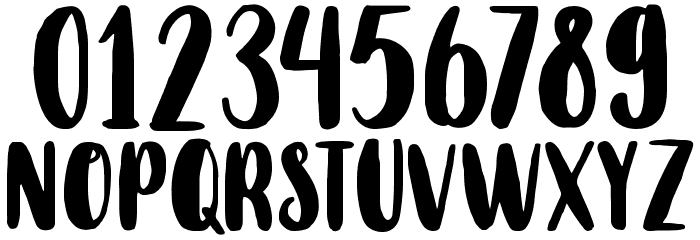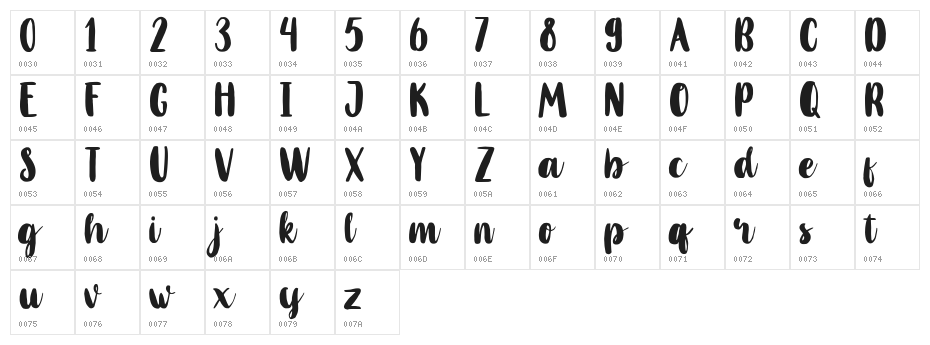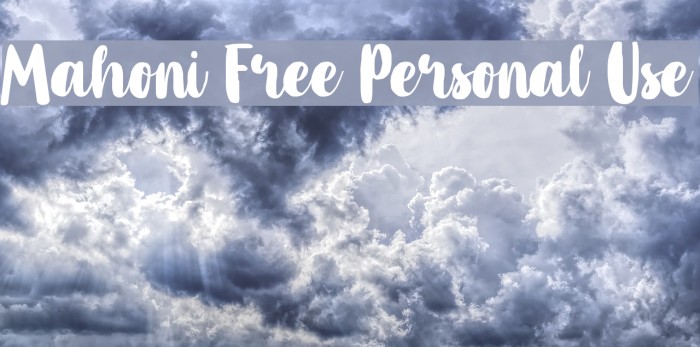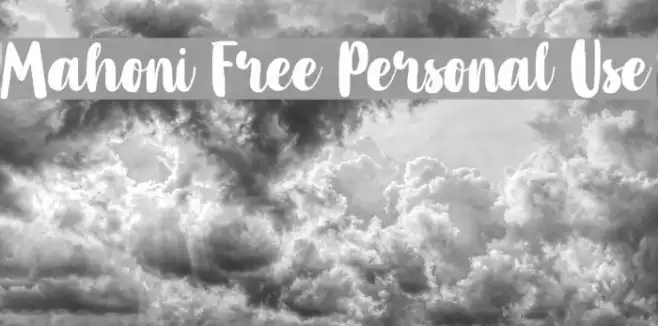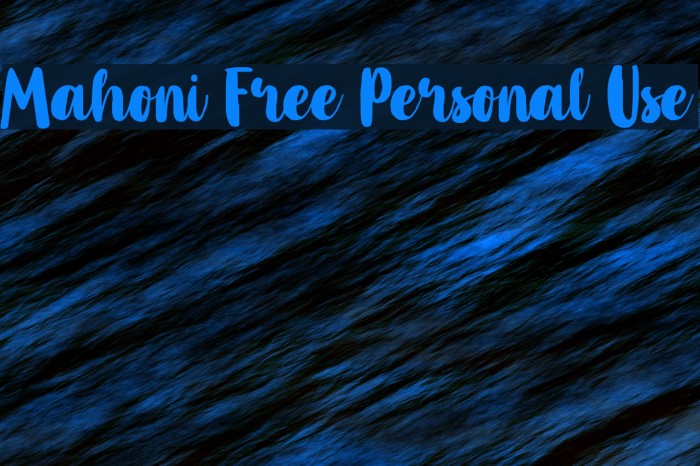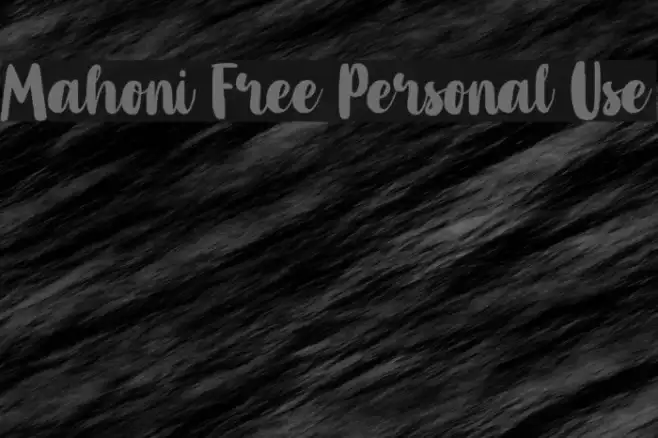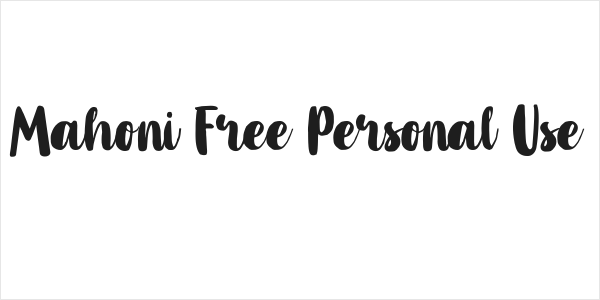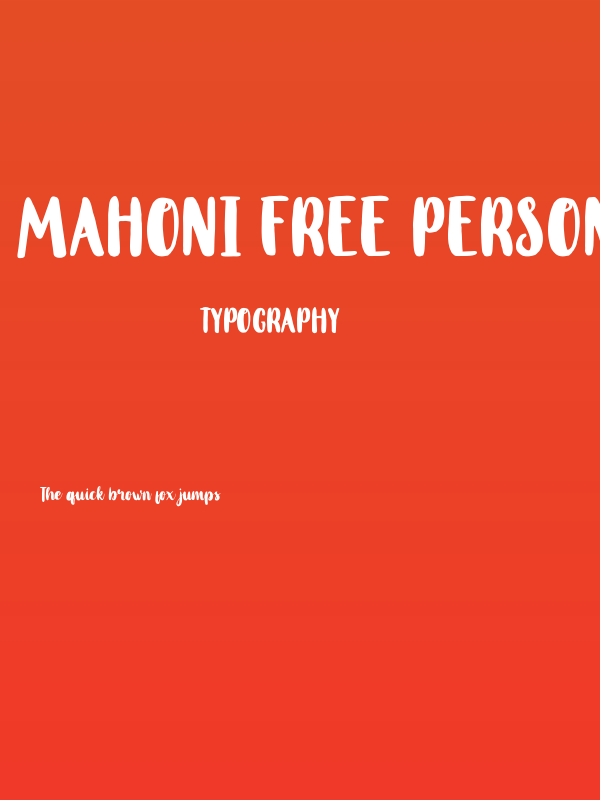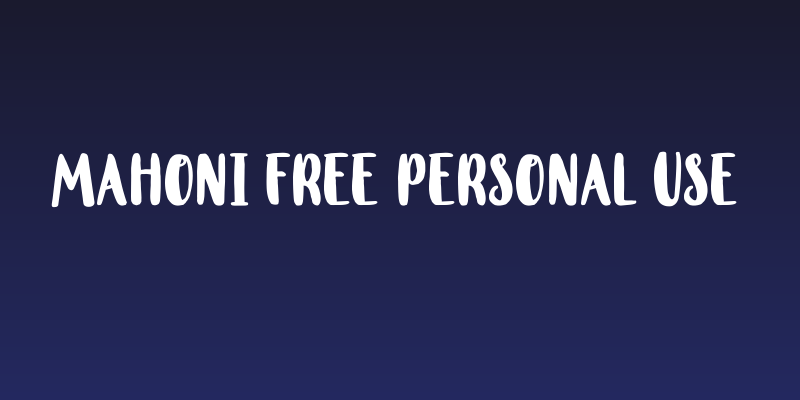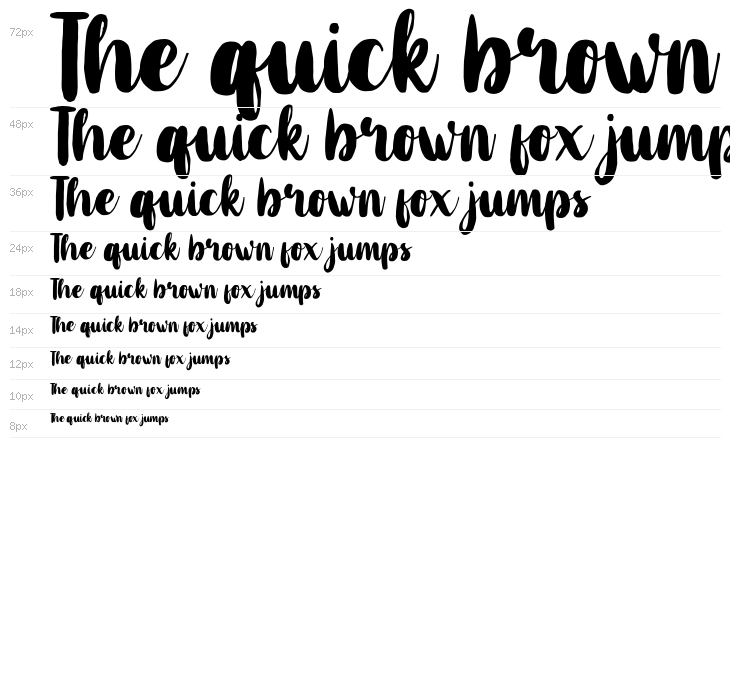
Mahoni Free Personal Use Font
Mahoni Free Personal Use Description
This font features a bold and expressive handwritten style, characterized by its thick, flowing strokes and playful curves. The uppercase letters are robust and dynamic, while the lowercase letters maintain a consistent fluidity that adds to the font's charm. The numbers are equally bold, ensuring visibility and impact. The special characters are crafted with the same attention to detail, making them blend seamlessly with the rest of the font. This typeface exudes a sense of creativity and energy, perfect for projects that require a personal touch.
| Proposed Projects | Ideal for greeting cards, posters, branding, and social media graphics. |